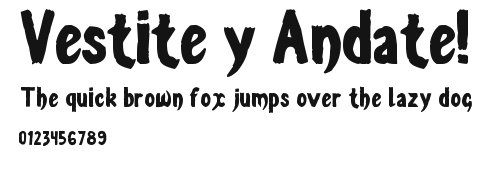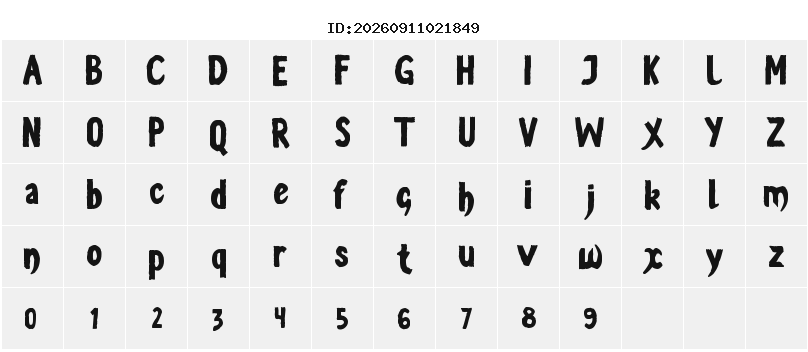
Vestite y Andate! Preview
• Font Name: Vestite y Andate!
• Full Font Name: Vestite y Andate!
About Vestite y Andate!.ttf
Vestite y Andate!.ttf is a modern, elegant sans-serif font designed for ultimate readability and visual harmony. Perfect for branding, headlines, web design, and print materials.